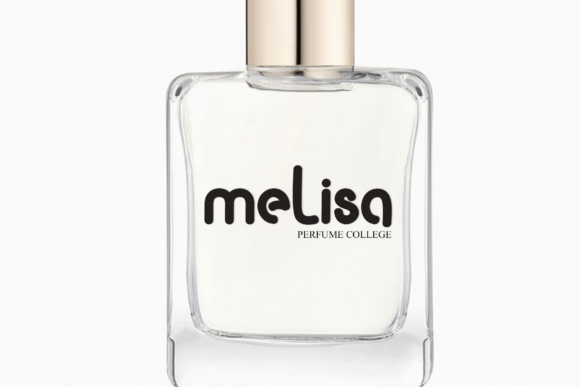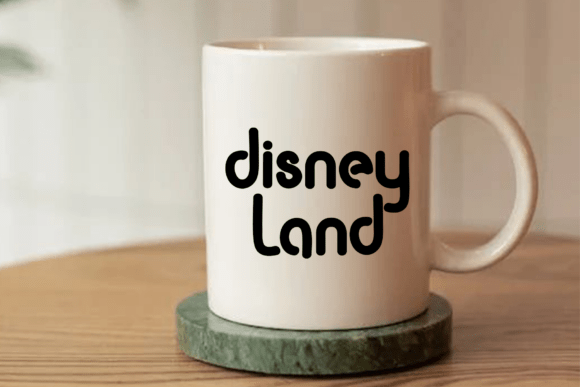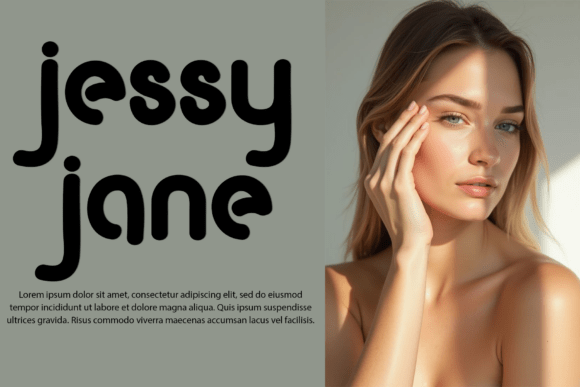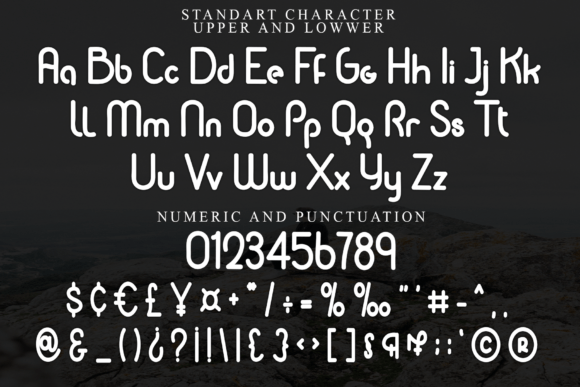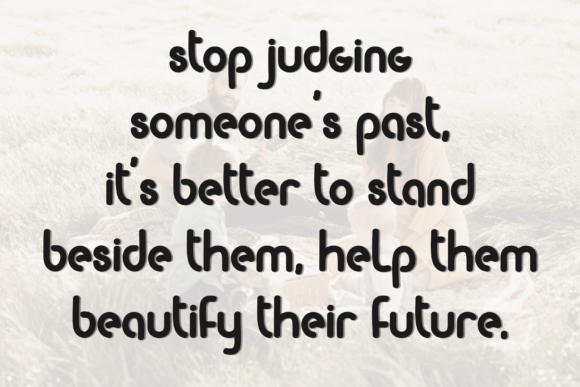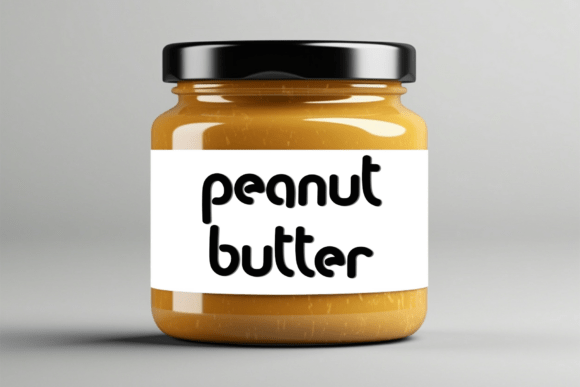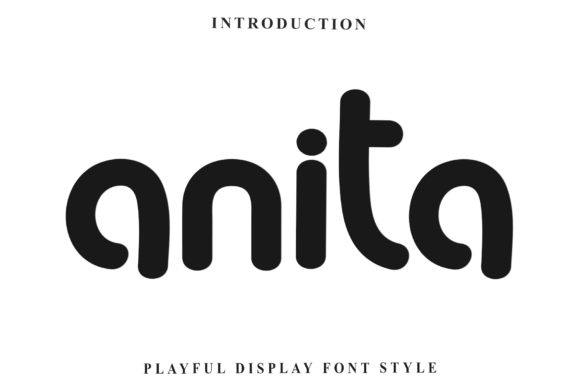
Discover the Beauty of Anita Font: Elevate Your Designs with a Unique Touch
In the world of typography, fonts play a crucial role in making or breaking a design. A well-chosen font can elevate your creative project, making it stand out from the crowd. If you’re on the hunt for a font that combines elegance with a touch of uniqueness, look no further than Anita Font. Designed with a soft, distinctive touch, Anita Font is a beautiful and eye-catching typeface that can add a special character to your designs.
The Distinctive Charm of Anita Font
Anita Font boasts a range of distinctive strokes that give it a special character. This unique touch makes it not only aesthetically pleasing but also highly versatile for future use. Whether you’re working on a design project, crafting a handmade card, or creating digital content, Anita Font can add a meaningful and personalized touch. Its various characters ensure that your designs are always interesting and engaging, perfect for capturing the attention of your audience.
Perfect for Design Projects and Creative Works
Anita Font is a designer’s dream come true. Its natural font style and compatibility with various applications make it an ideal choice for a wide range of products. From graphic design and branding to crafting and DIY projects, Anita Font can enhance your creations, making them appealing to a broad audience. Whether you’re working on a professional project or a personal craft, this font is sure to bring your ideas to life.
Applications of Anita Font
The applications of Anita Font are endless. Here are a few ideas to get you started:
- Graphic Design: Use Anita Font to create stunning logos, brochures, and posters that capture the essence of your brand.
- Crafting: Add a personal touch to your handmade cards, scrapbooks, and DIY projects with Anita Font.
- Digital Content: Enhance your blog posts, social media graphics, and website content with the elegant and unique style of Anita Font.
Why Choose Anita Font?
With so many fonts available, why choose Anita Font? Here are a few compelling reasons:
- Unique Style: Anita Font offers a distinctive style that sets it apart from more traditional fonts.
- Versatility: Its compatibility with various applications and adaptability to different contexts make it a versatile choice.
- Elegance: Anita Font adds a touch of elegance to any design, making it perfect for projects that require a sophisticated look.
Anita Font is a beautiful and eye-catching font that can elevate your designs with its unique touch. Its distinctive strokes, versatility, and compatibility make it an ideal choice for designers and crafters alike. Whether you’re working on a professional project or a personal craft, Anita Font is sure to bring your ideas to life. So why wait? Discover the beauty of Anita Font today and take your designs to the next level.
Incorporating Anita Font into your design projects is a simple yet effective way to make them stand out. With its natural font style, range of characters, and compatibility with various applications, Anita Font is the perfect choice for anyone looking to add a touch of elegance and uniqueness to their creations. So go ahead, explore the possibilities of Anita Font, and watch your designs come to life in a whole new way.